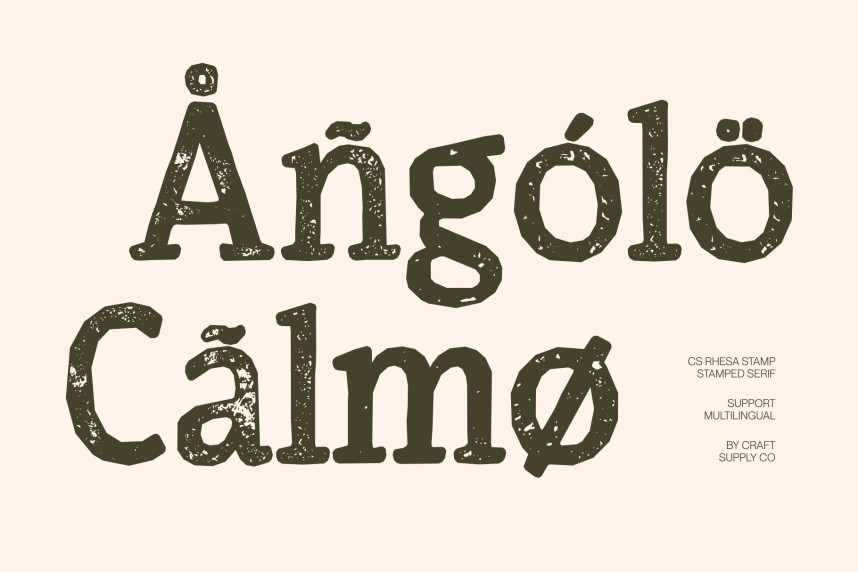
CS Rhesa Stamp Font
CS Rhesa Stamp Font – Modern Classic Serif Font: Where Timeless Elegance Meets Vintage Texture
Timeless Letterforms with Contemporary Refinement
This is a modern classic serif font that blends traditional elegance with contemporary sophistication. Designed with balanced proportions, refined serifs, and graceful structure, it delivers a polished typographic voice that feels both enduring and relevant. The addition of a stamp effect enhances its character with subtle vintage texture, introducing an artistic, timeworn quality that enriches its classic foundation.